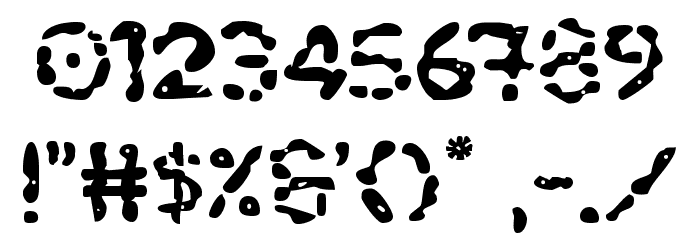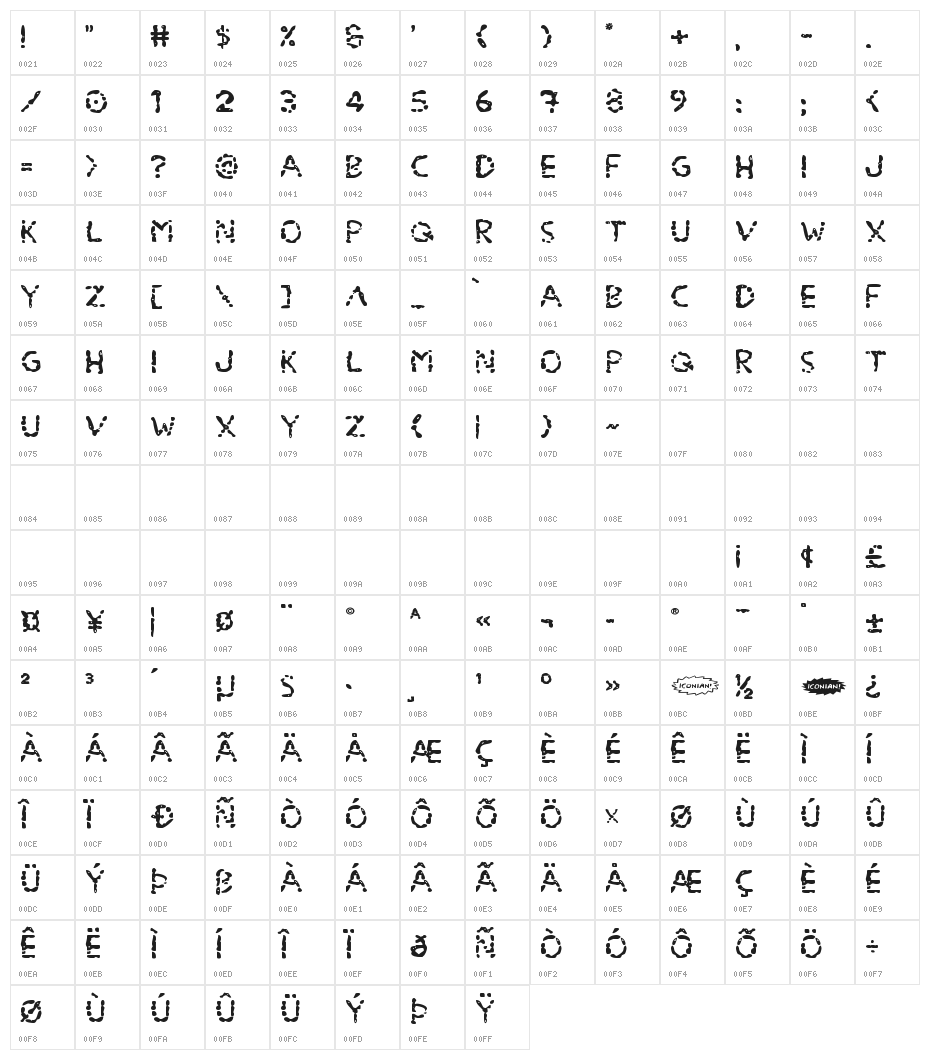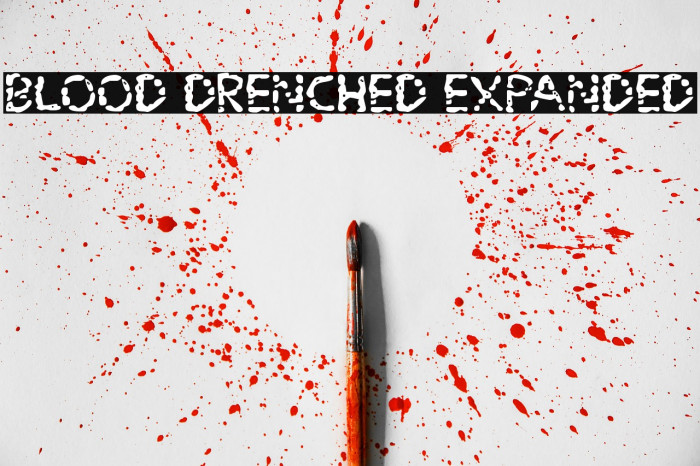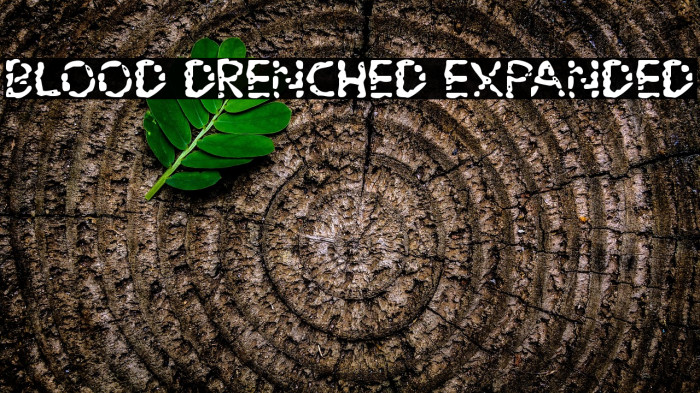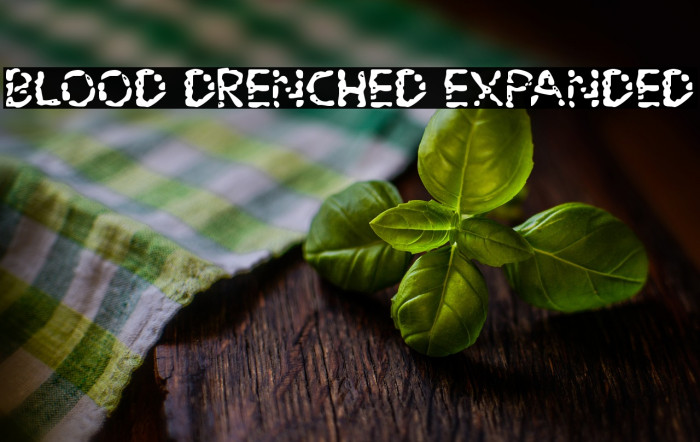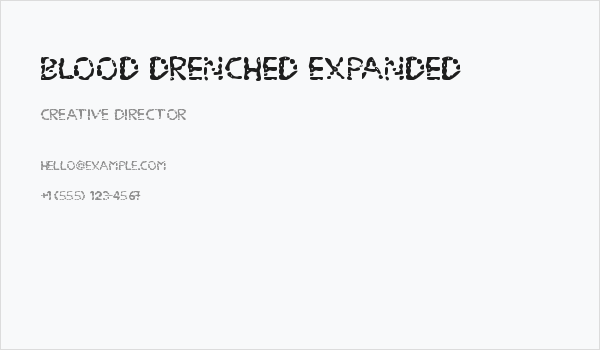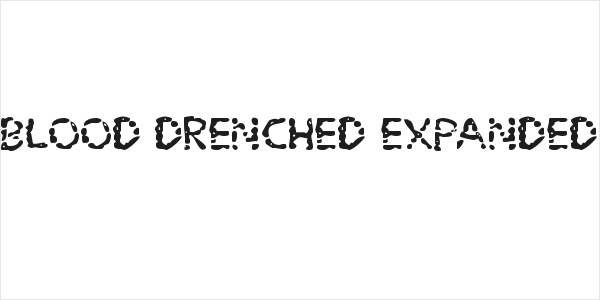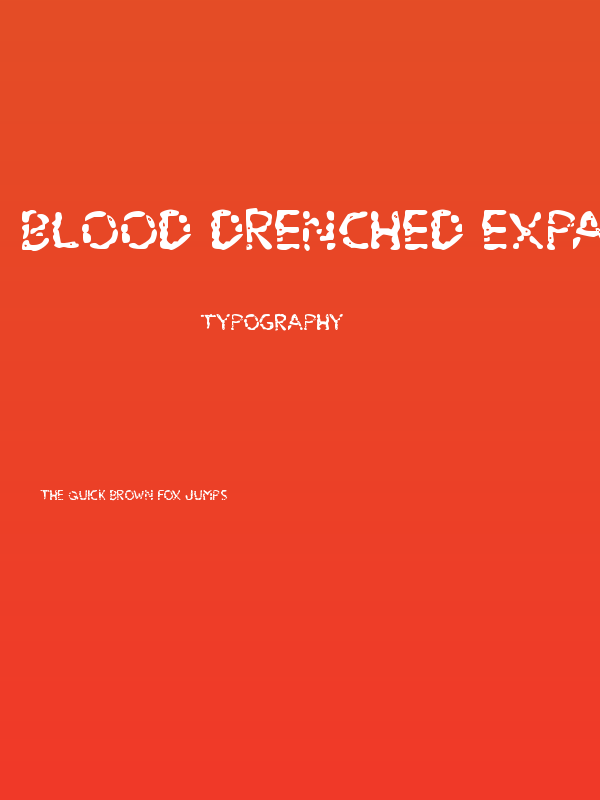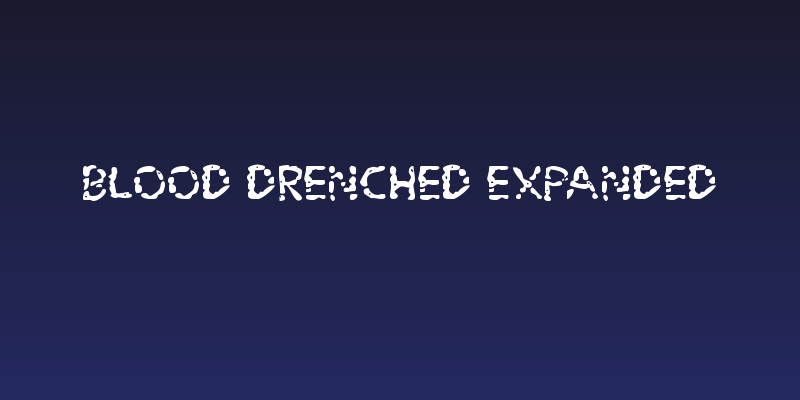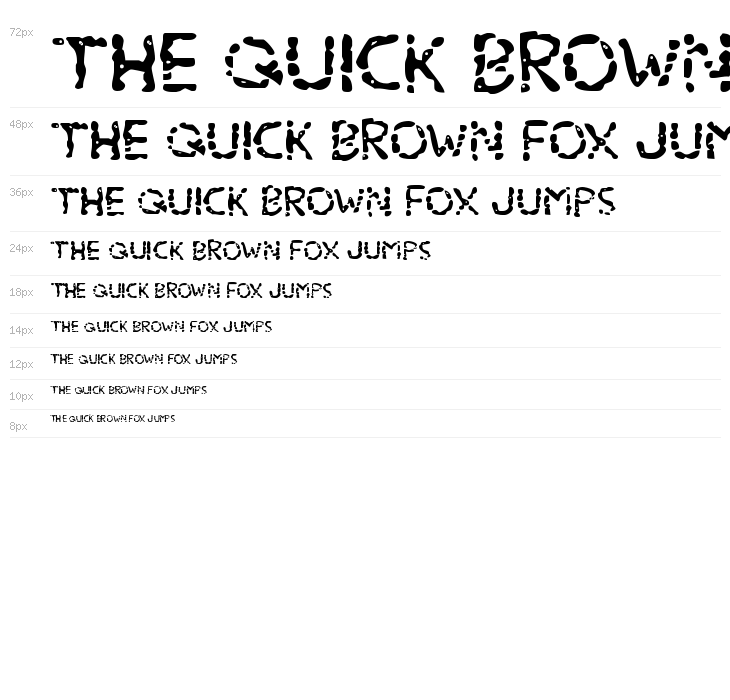
Blood Drenched Expanded Font
Blood Drenched Expanded Description
This font features a unique and striking design, characterized by its bold, irregular shapes that resemble splatters or droplets. The letters have a playful yet eerie appearance, making them stand out with their dramatic and artistic flair. The font's style is reminiscent of a horror or Halloween theme, with each character appearing as if it has been splattered with ink or paint. The uppercase and lowercase letters maintain a consistent style, with numbers and special characters following the same design principles. The overall effect is both eye-catching and memorable, suitable for projects that require a bold and unconventional aesthetic.
| Proposed Projects | Ideal for Halloween-themed designs, horror movie posters, edgy graphic design projects, and any creative work that requires a dramatic and unconventional typeface. |